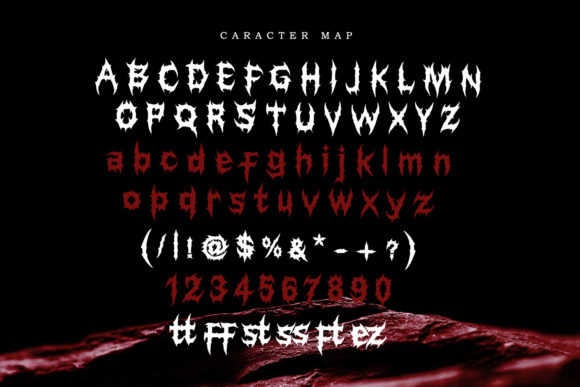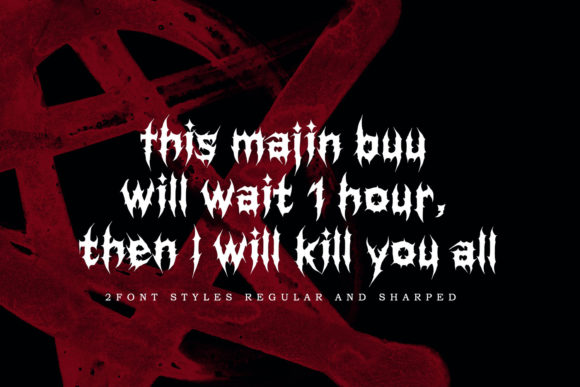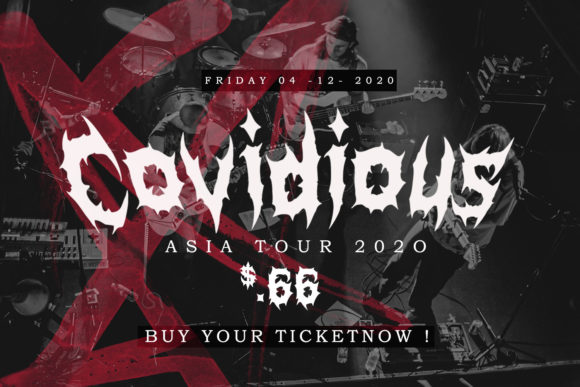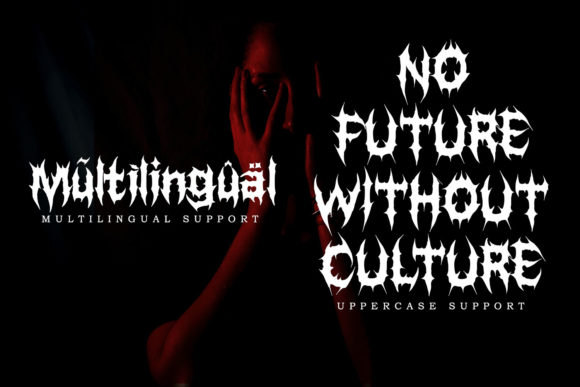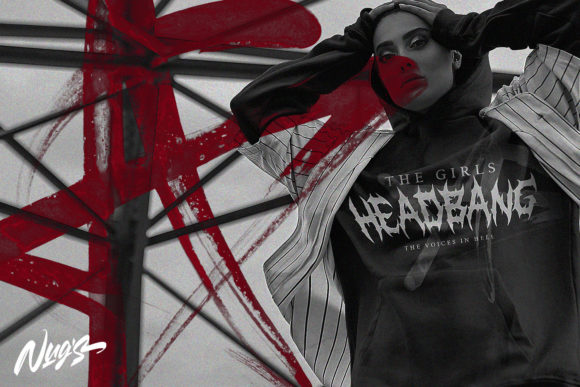
Introduction to Slaughter Font
Slaughter is a bold and dramatic looking blackletter font.
It has a creepy, horror style and it will make each of your design ideas stand out .
Key Features of Slaughter Font